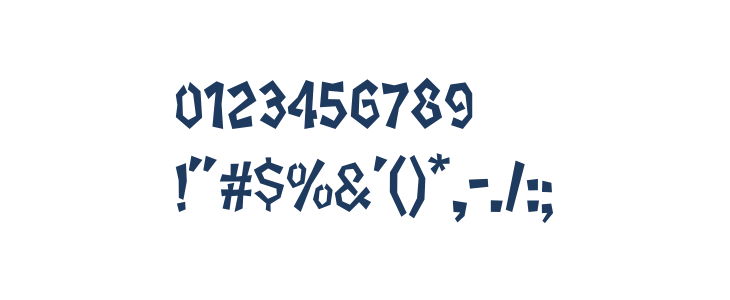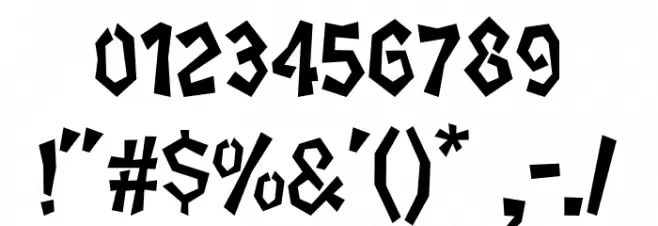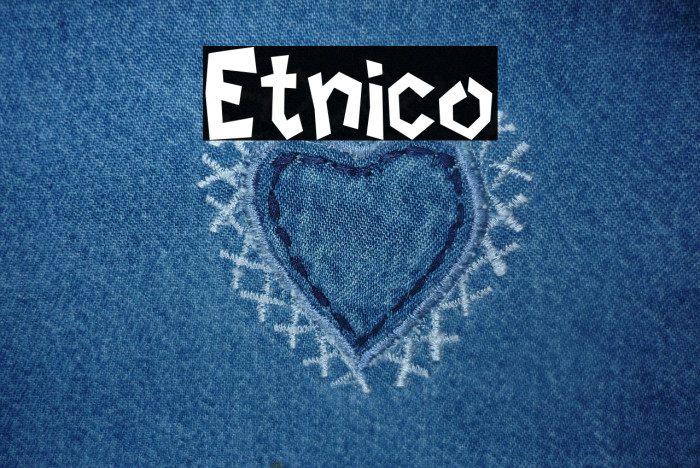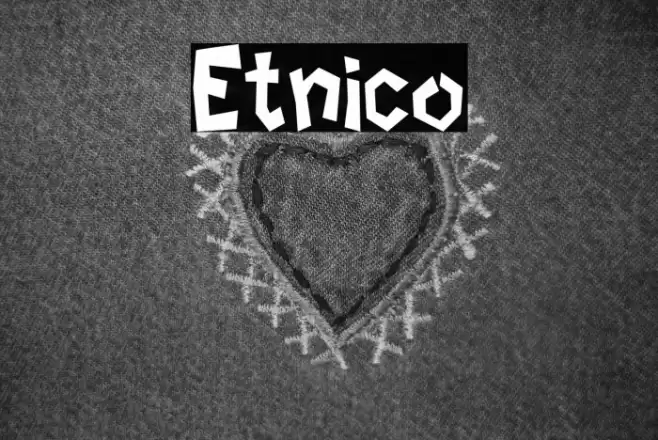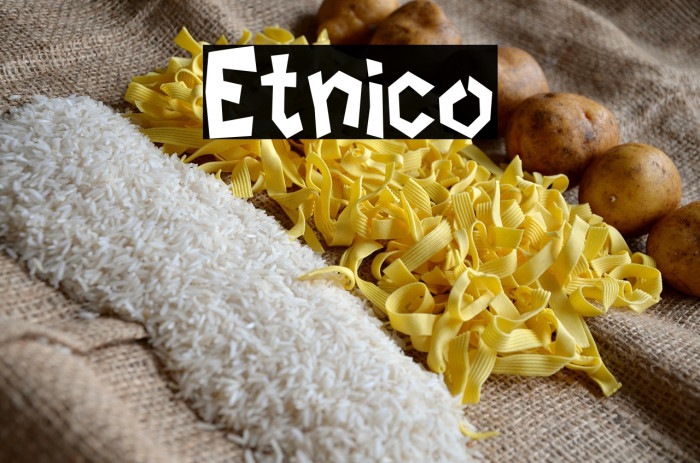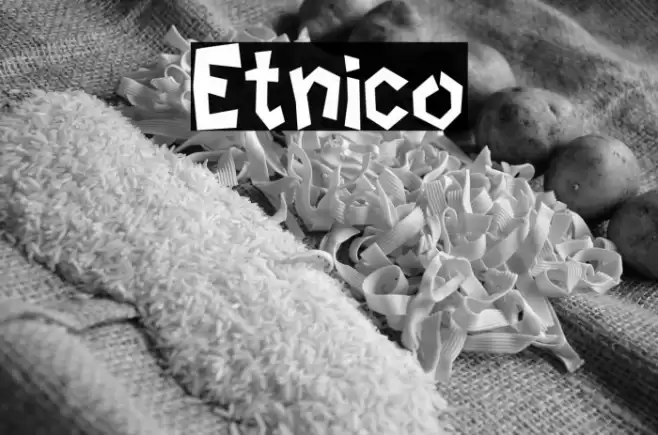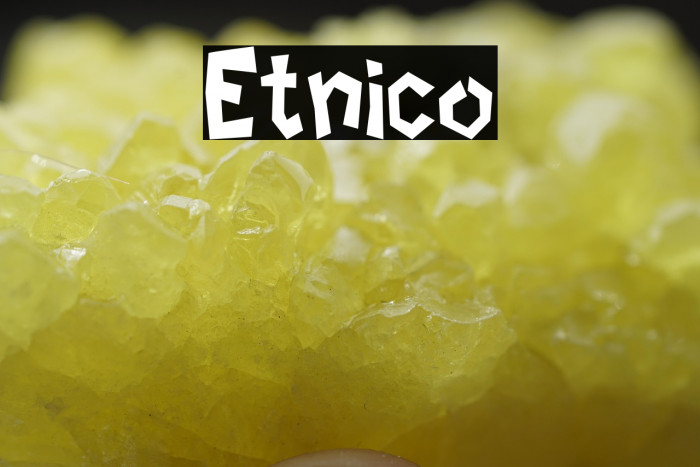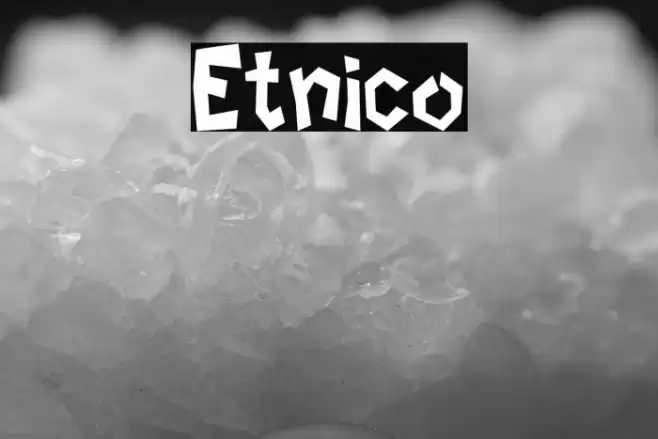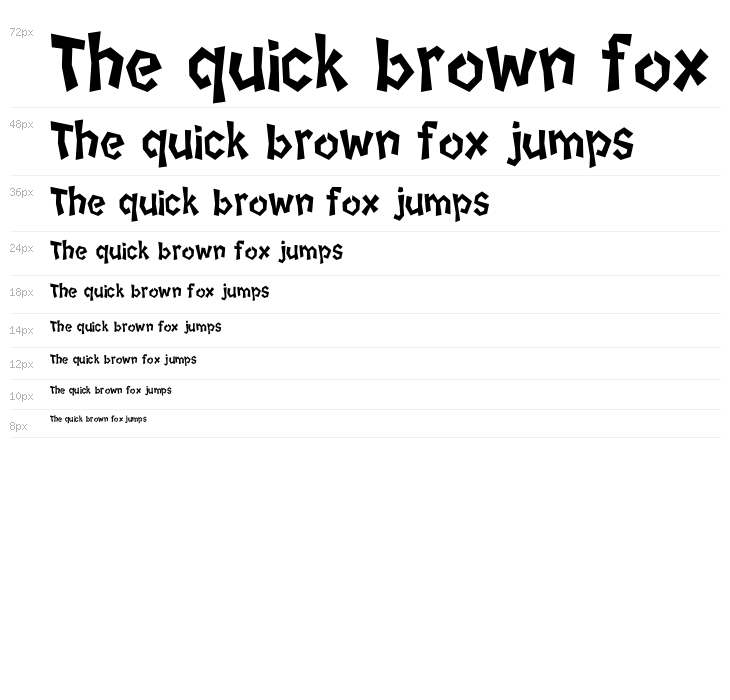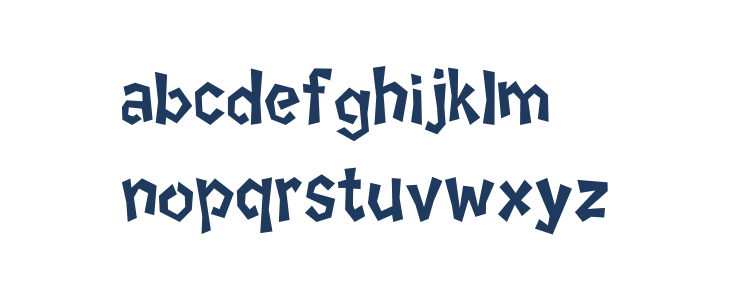
Etnico Font
Etnico Description
This font features a bold and dynamic style with angular, geometric shapes that give it a unique, ethnic-inspired appearance. The characters are designed with sharp edges and irregular lines, creating a sense of movement and energy. The uppercase and lowercase letters maintain a consistent style, while the numerals and special characters complement the overall aesthetic. The font's distinctive look makes it suitable for projects that require a strong visual impact.
| Proposed Projects | Ideal for cultural event posters, album covers, branding for ethnic-themed products, and artistic projects requiring a bold statement. |